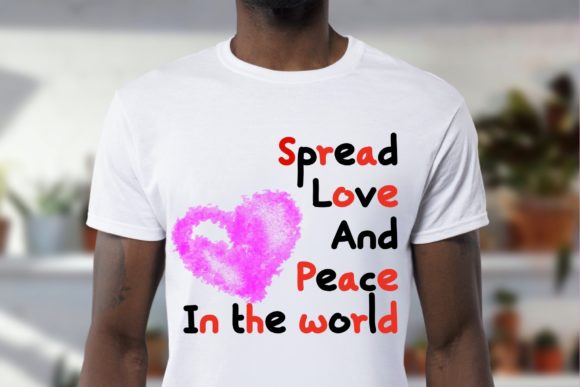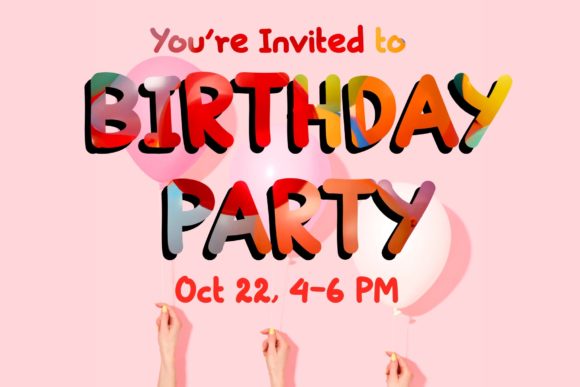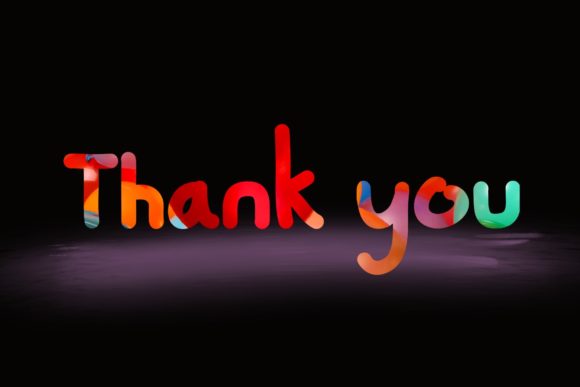
The Magical World of Ballon Journey Font
Have you ever been in the middle of a design project, and suddenly, you just can’t seem to find the right font? I recall a particularly frustrating experience while working on a children’s book project. My client wanted a font that was both playful and elegant, but I just couldn’t seem to find the perfect fit. That’s when I stumbled upon the enchanting Ballon Journey Font. ✨
A First Impression: Charming and Friendly
As soon as I laid eyes on Ballon Journey, I knew I had found something special. This dazzling display font has a way of making any creative idea stand out from the crowd. Its charming and friendly demeanor immediately drew me in, and I couldn’t wait to dive deeper and explore its features.
- ✨ Unique and quirky design that’s perfect for creative projects
- ✅ Excellent for titles, headings, and display text
- 🖌️ Supports OpenType features, glyphs, and stylistic alternates
- 📚 Works beautifully with both English and non-English languages
While Ballon Journey is an amazing font, there are a few things to keep in mind: 🤔
- ⚠️ May not be the best choice for body text or long paragraphs
- ⚠️ Some characters may not work well at very small font sizes
The Story Behind Ballon Journey
According to its creators, Ballon Journey was inspired by the whimsical world of hot air balloons. The font’s unique design is meant to evoke a sense of adventure and freedom. Whether you’re designing a travel brochure or a children’s book, Ballon Journey is sure to add a touch of magic to your project.
Q: What type of projects is Ballon Journey best suited for?
A: Ballon Journey is perfect for creative projects that require a playful and elegant touch, such as titles, headings, and display text.
Q: Does Ballon Journey support OpenType features?
A: Yes, Ballon Journey supports OpenType features, glyphs, and stylistic alternates, making it a versatile font for a wide range of design projects.